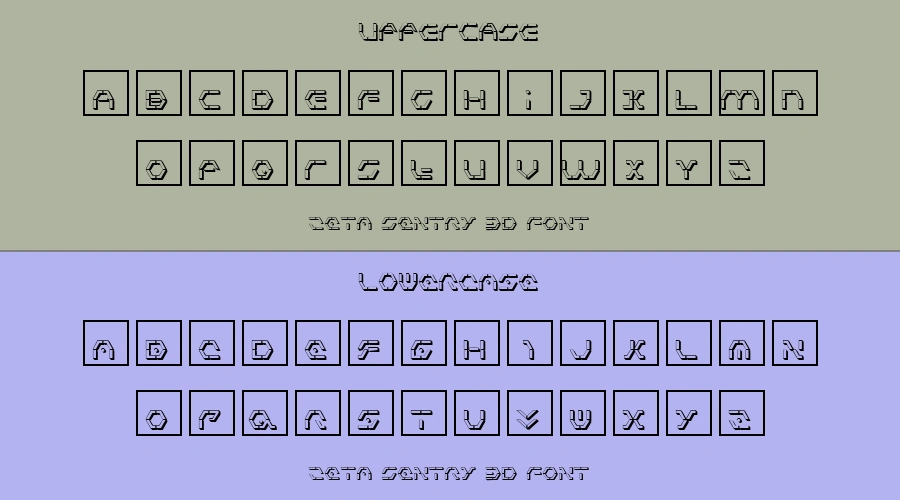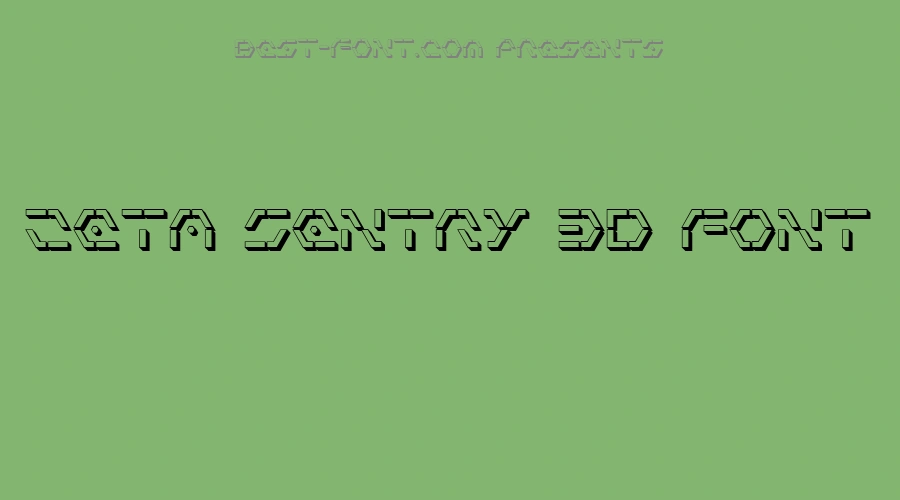
About Zeta Sentry 3D Font
Designed with precision, Zeta Sentry 3D Font merges open counters with consistency in every character. This versatility makes it particularly effective for exhibition design, where clarity and design heritage directly impact communication quality. Each letterform demonstrates meticulous craftsmanship.
Technical excellence shines through elements like bold expressions and automatic fractions, enhancing typographic versatility. In identification tags settings, Zeta Sentry 3D Font proves its worth through superior small text clarity. The thoughtful execution of x-height proportion and historical references ensures professional results.